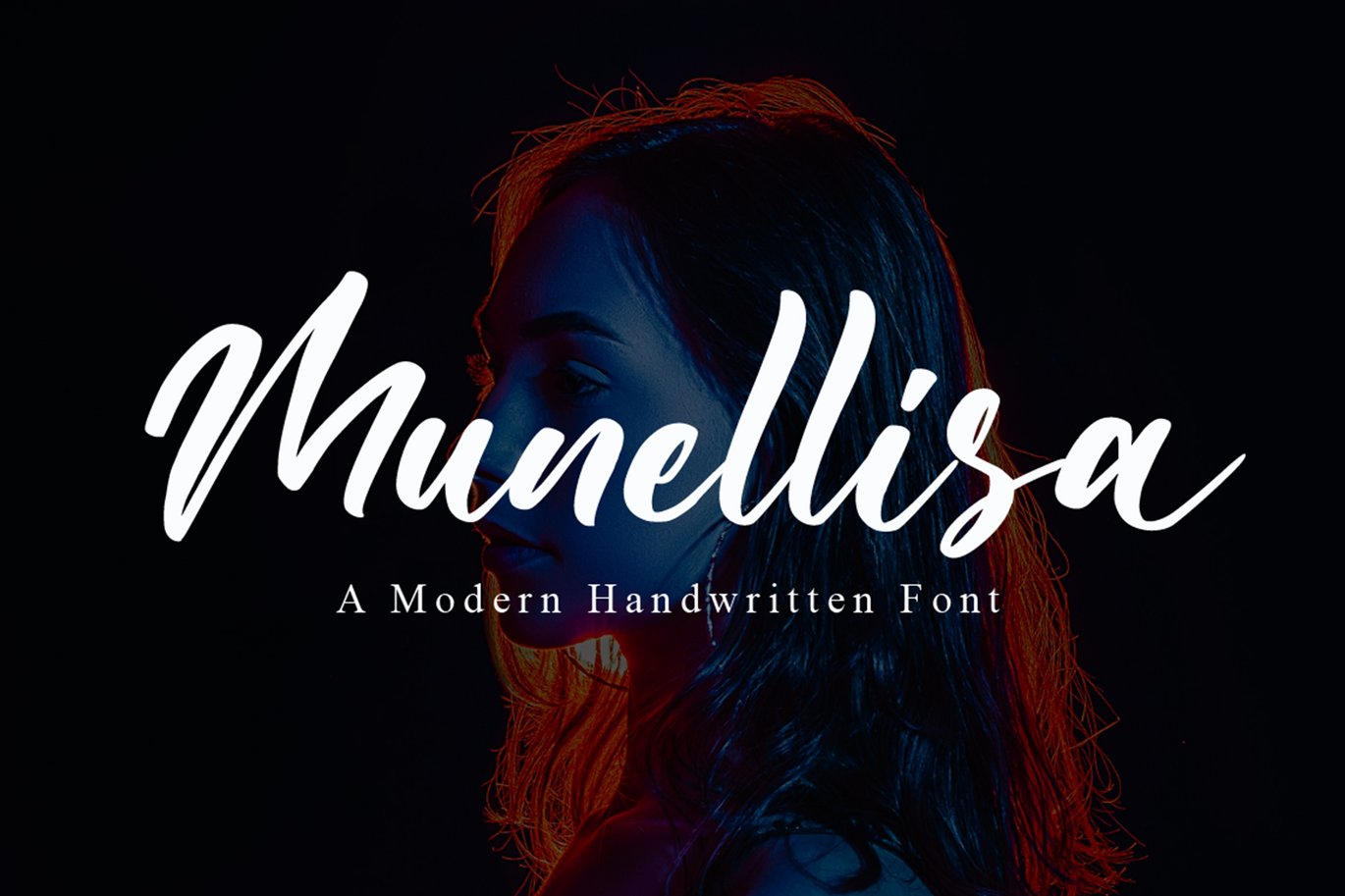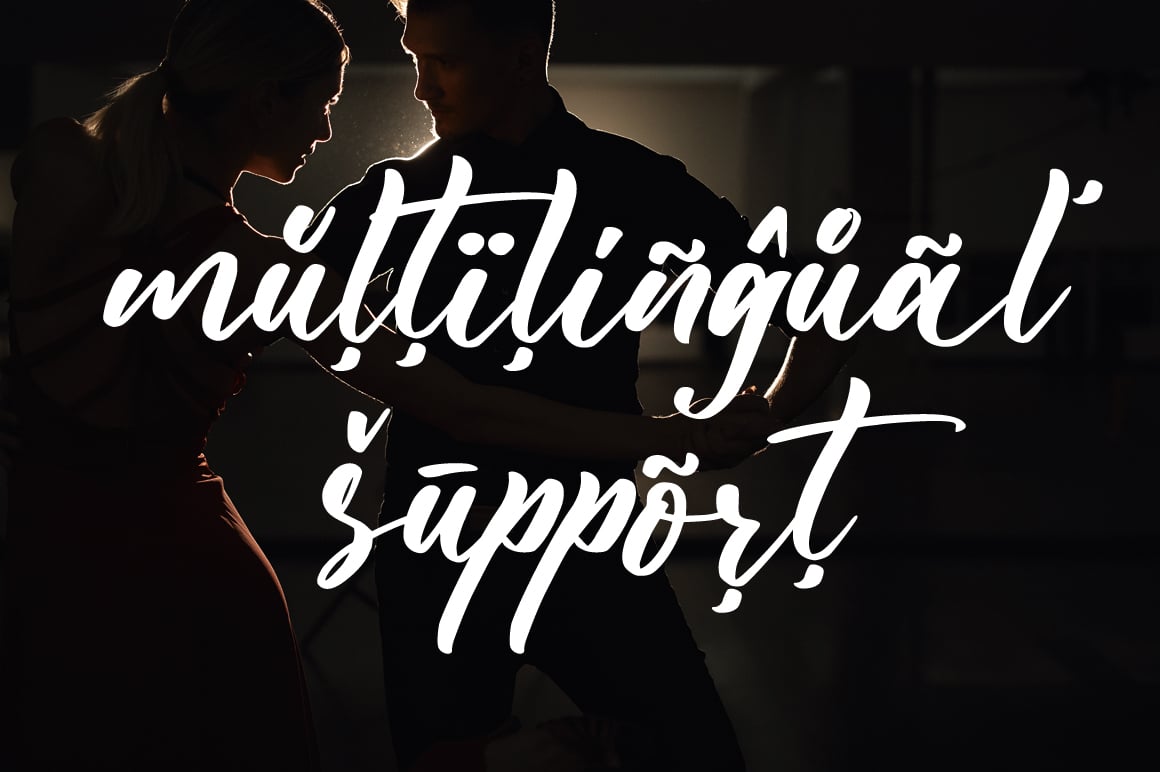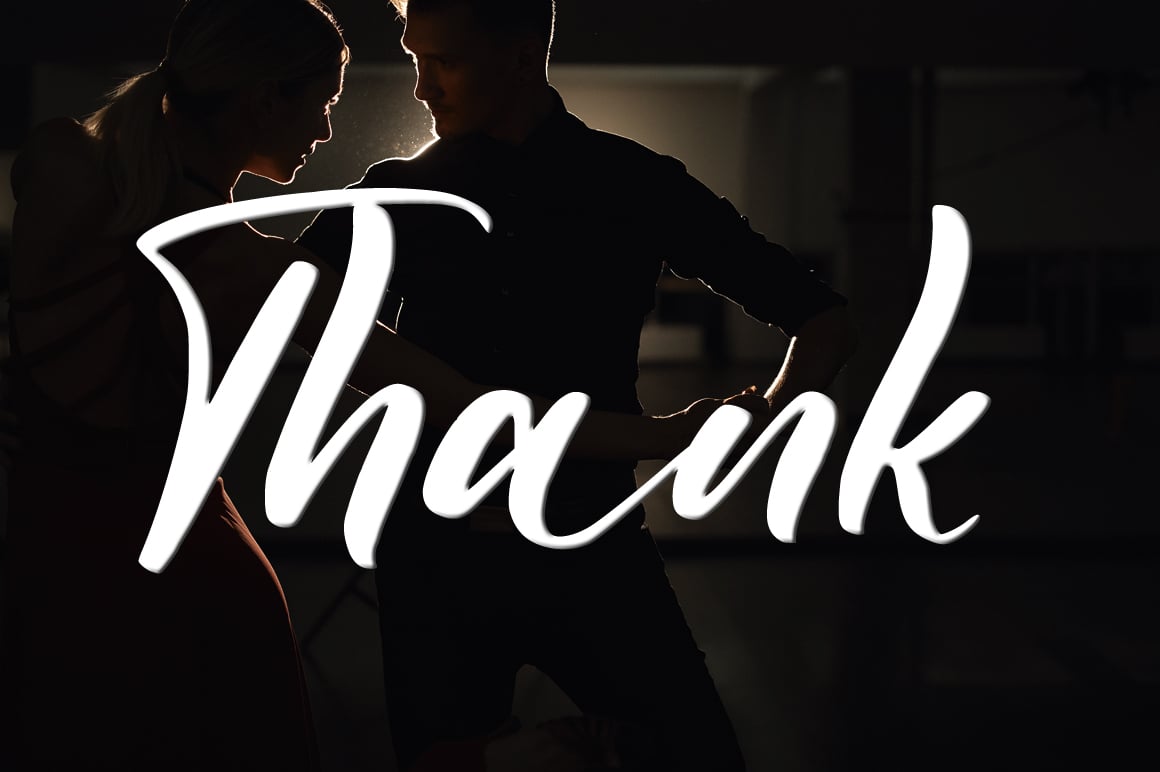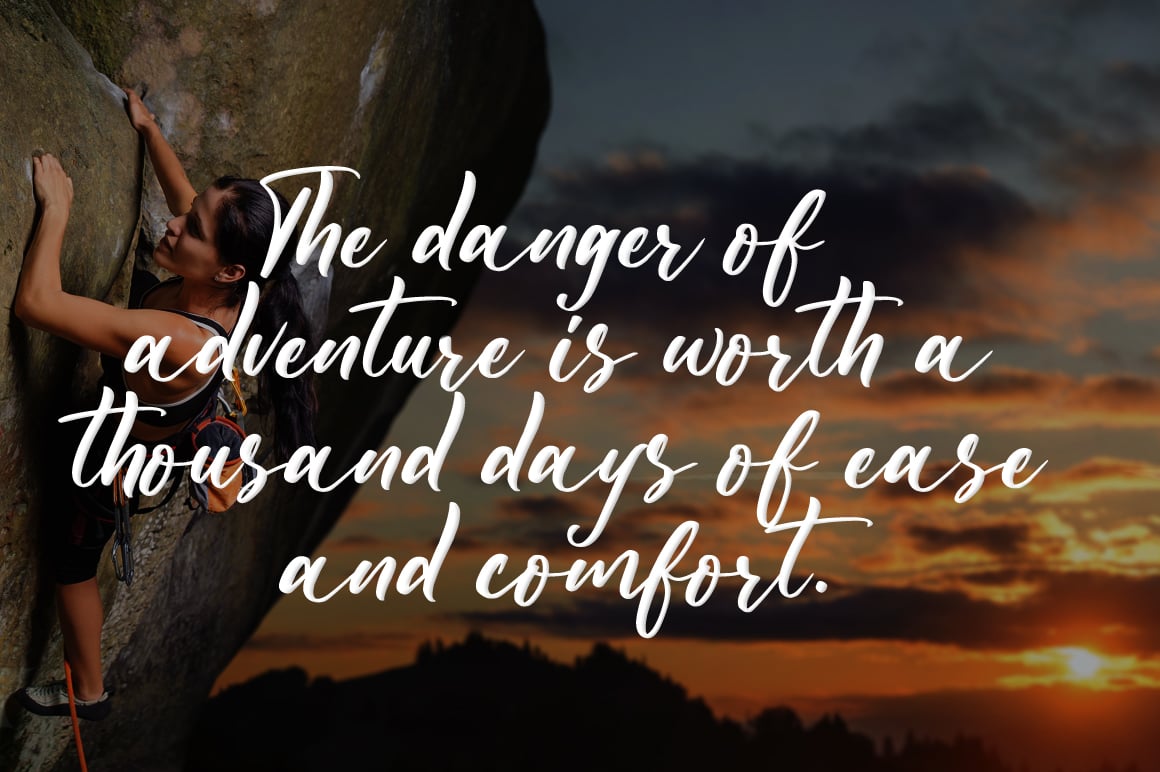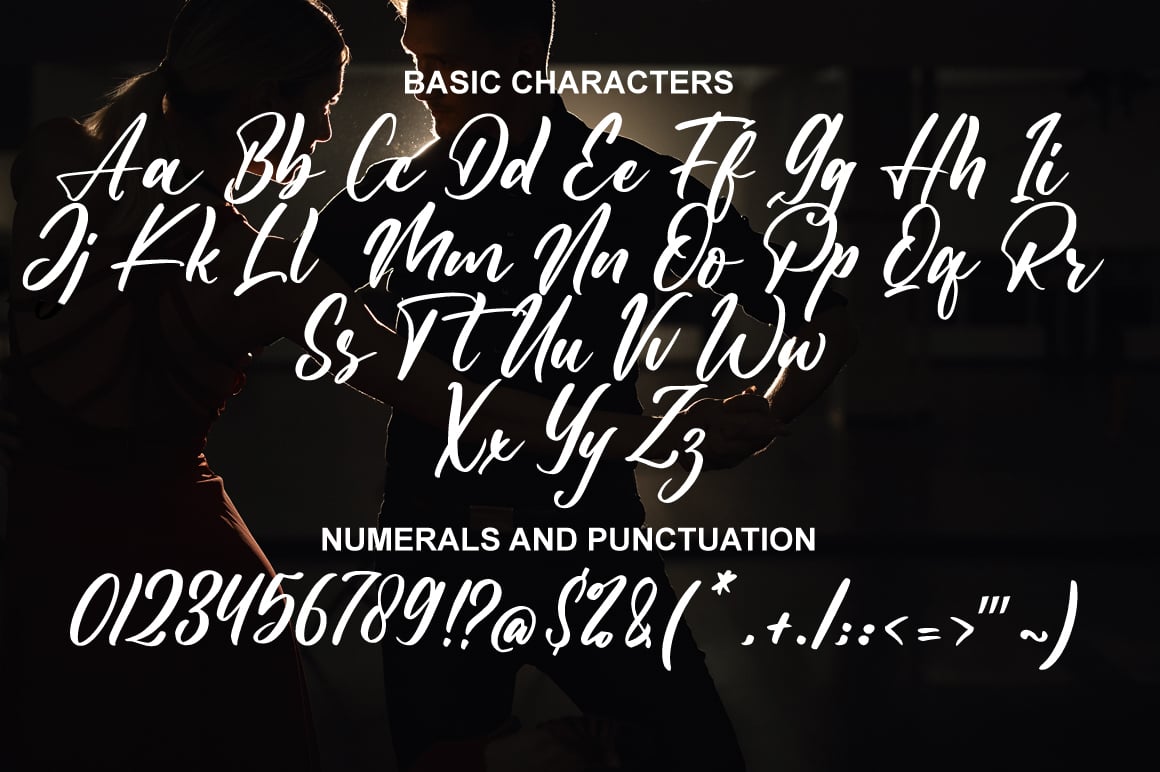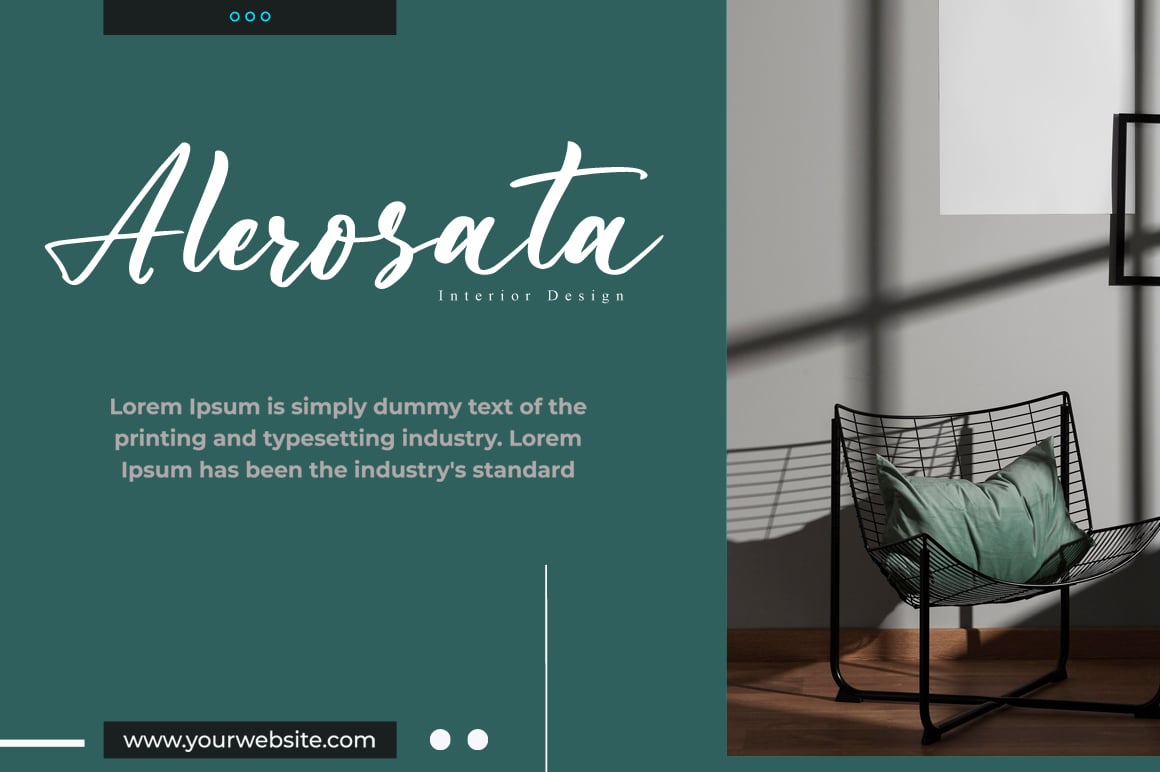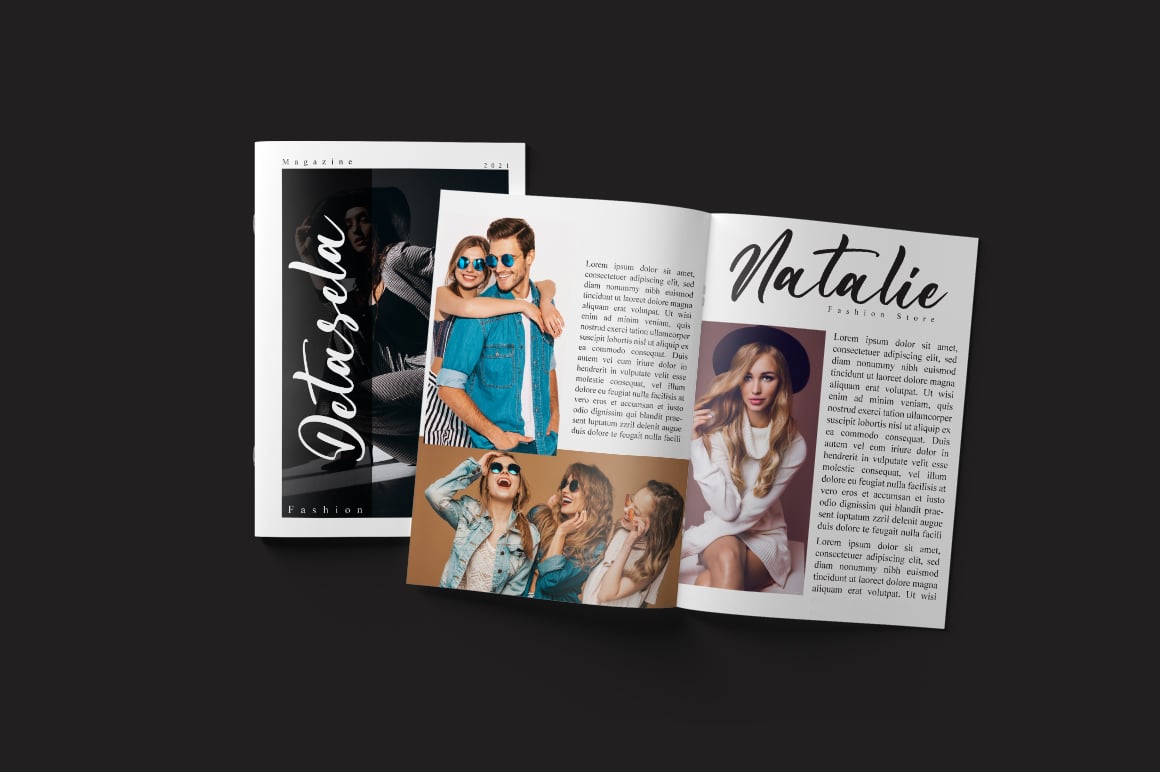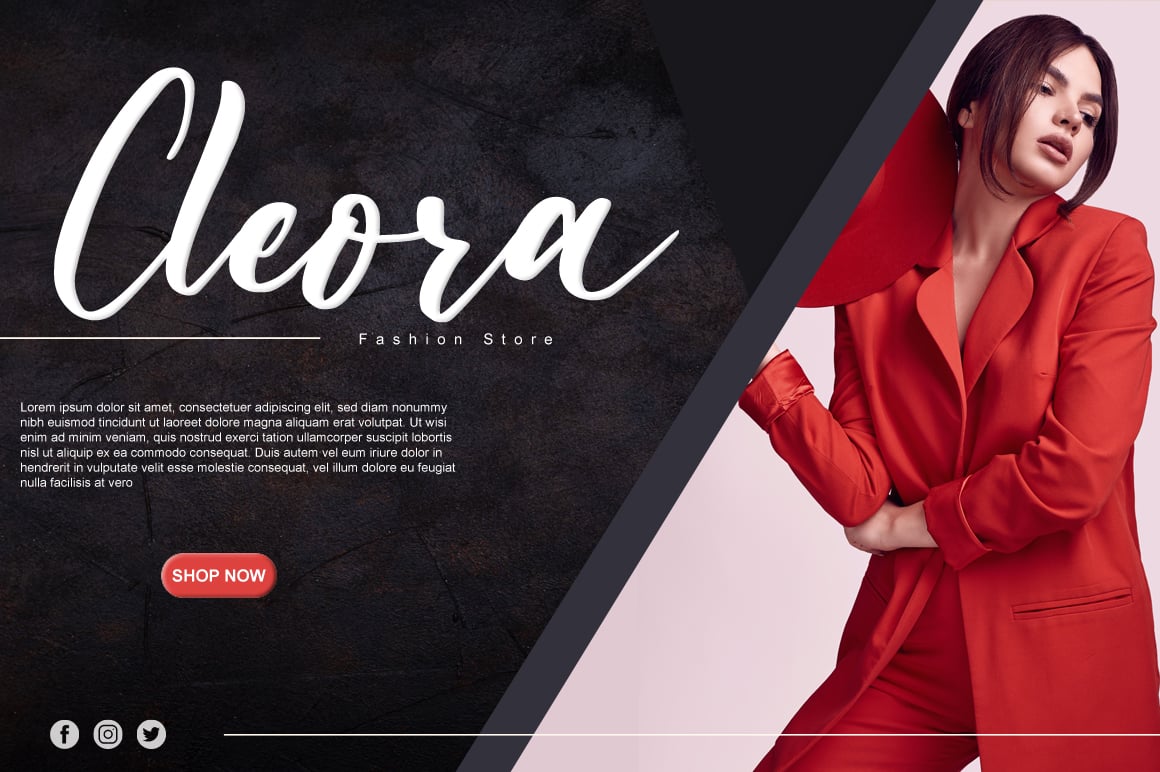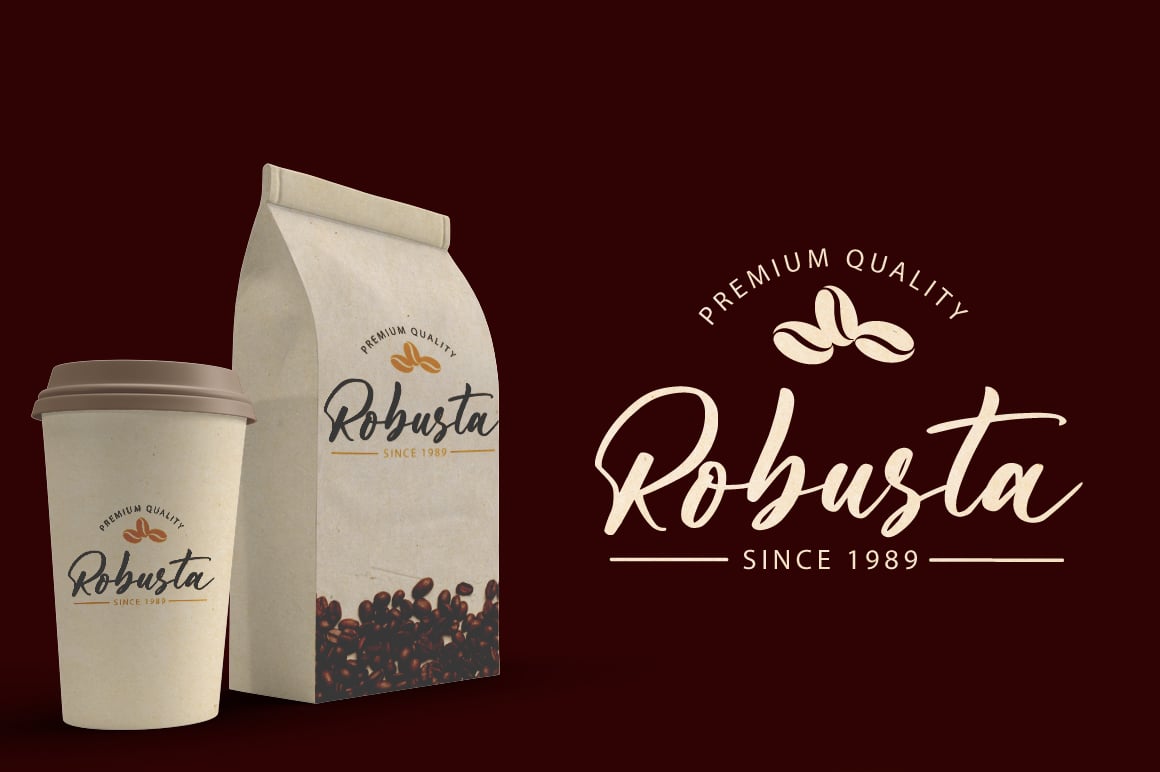
Munellisa – Wedding Font
Munellisa is a beautiful light handwritten font with a unique feel and a stunning impact. It will add a luxury spark to any design project that you wish to create!
- Ligatures, Swash, Alternates